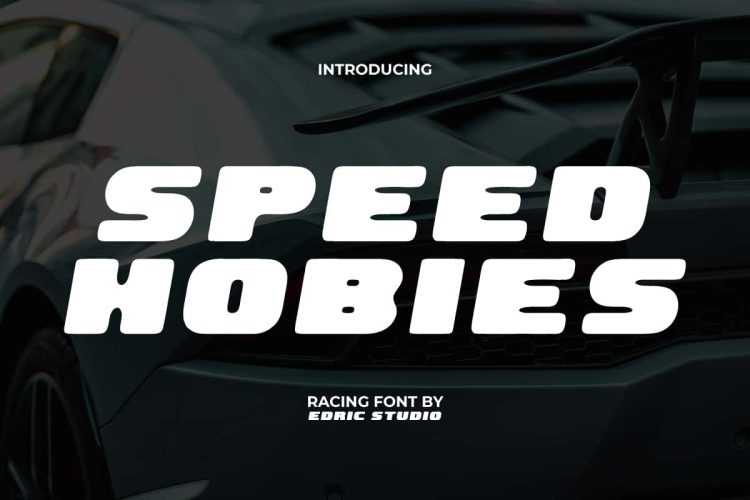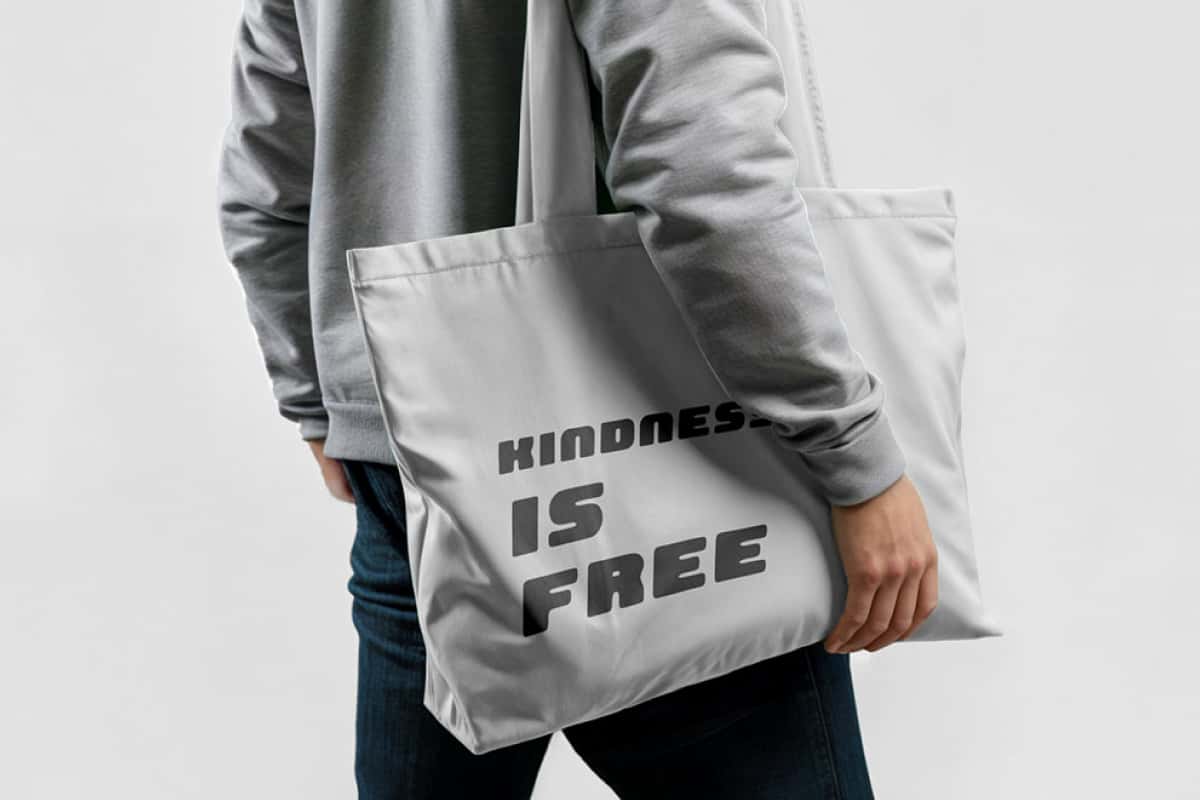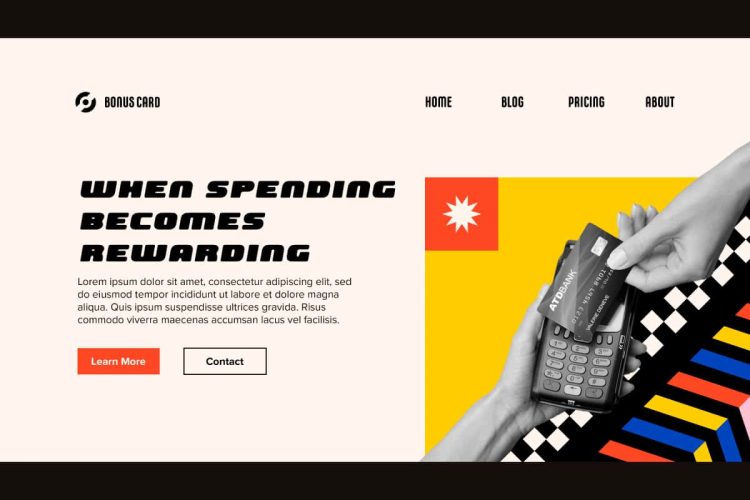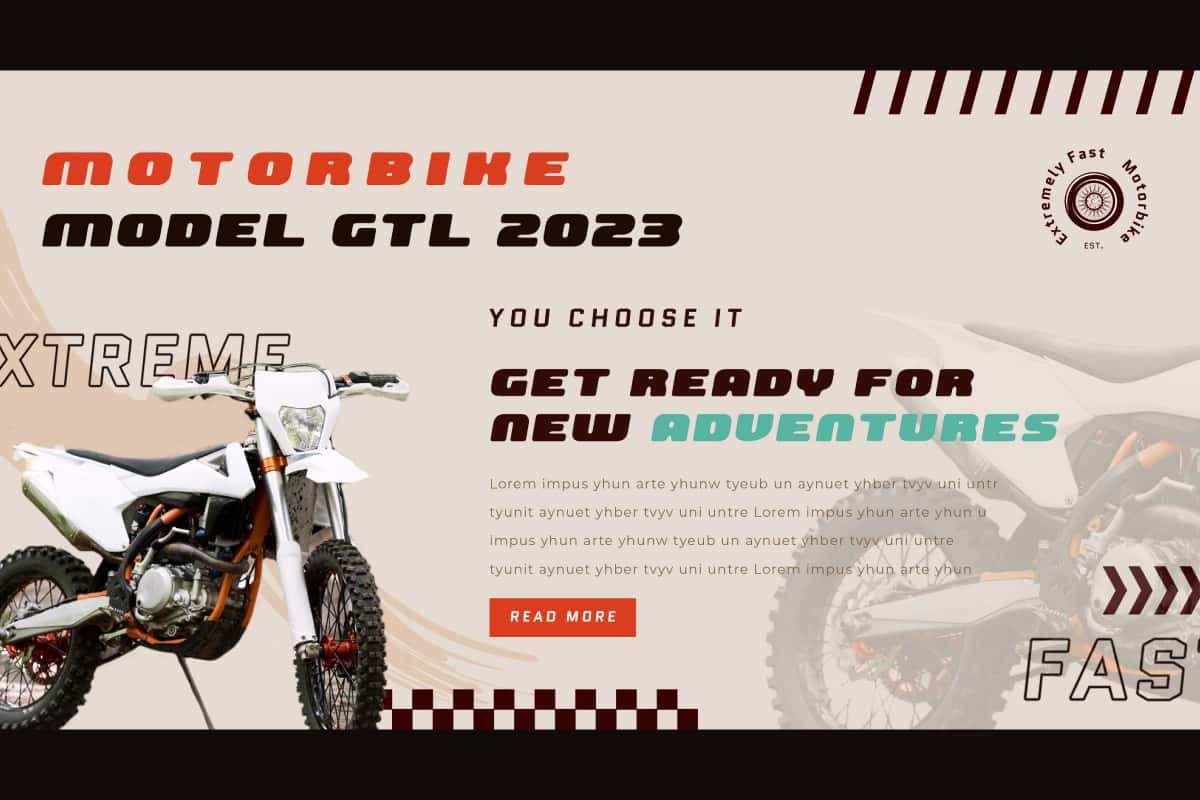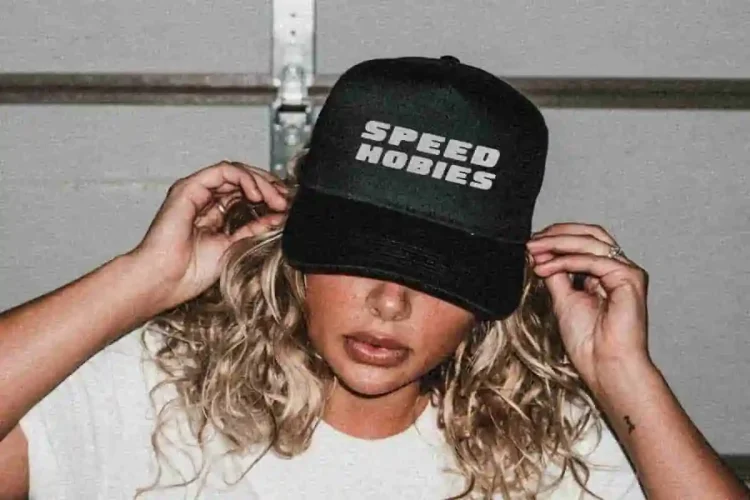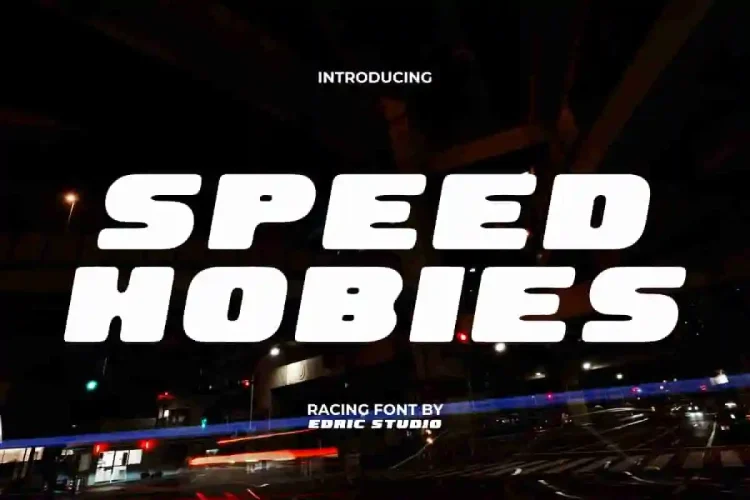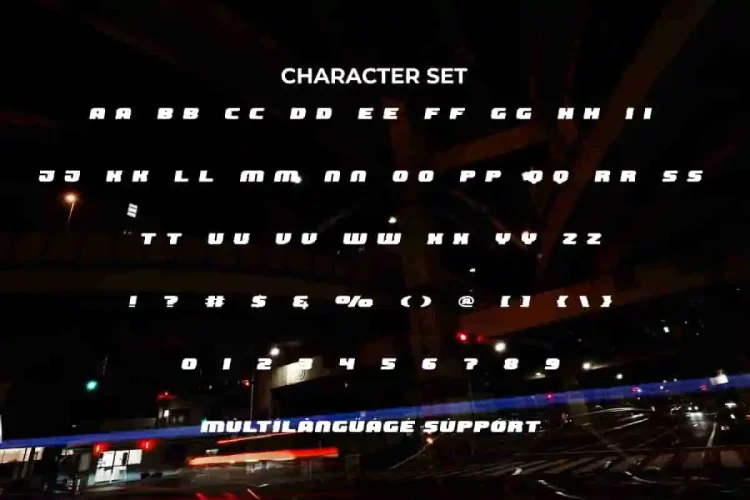
Speed Hobies Font is a cute playful cartoon with racing theme font written in capital letters bringing a nostalgic and futuristic feel. Passionately designed to make a strong impression and attract attention. This font is perfect for banners, billboard, blogs, brand logo, brochure, caps mockup, headers, headline, packaging, poster, printed materials, sticker, template, title, website, and much more.
Speed Hobies Font includes a complete set of ALL CAPS for both Uppercase and Lowercase letters, Numbers, Punctuation, and Symbols. It allows you to experiment with unique combinations. With solid, wide, and rounded letterforms, it offers a bold and sporty font look. Perfect for accessories and merchandise, advertising, auto racing, automotive, cycling, fashion, game, graphic design, motorsports, photography, sportwear, and more.